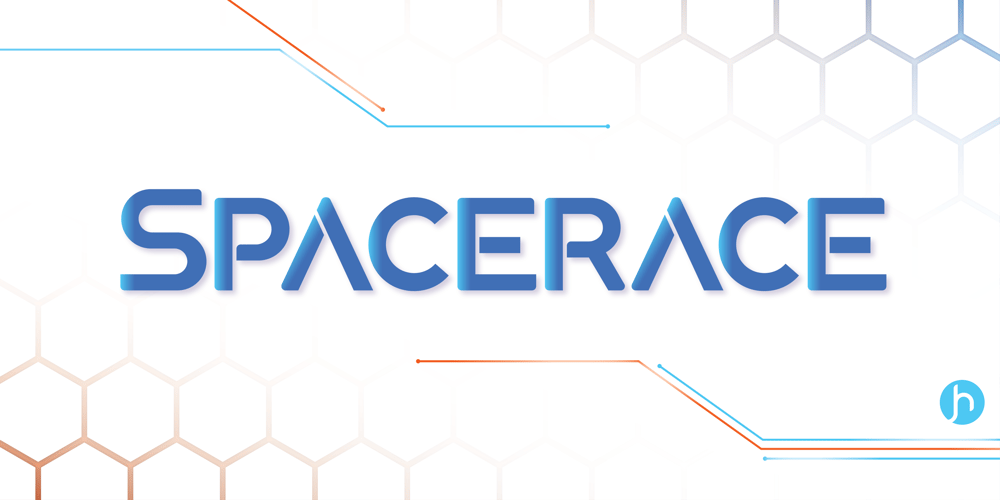
Spacerace Font Family was designed by Joe Hewitt and published by Joe Hewitt Design. Spacerace contains 10 styles and family package options. Spacerace is here to infuse a touch of the future into your projects. It is a modern, clean, multi-weight typeface heavily inspired by Science Fiction. It brings a sleek aesthetic to various design projects and conveys a sense of competition and progress. The geometric elements give the impression of space and exploration.Most glyphs have ‘sliced through’ alternatives for you to mix and match with the standard style. Available in Light, Regular, Medium, Semibold and Bold weights, all with matching oblique versions.